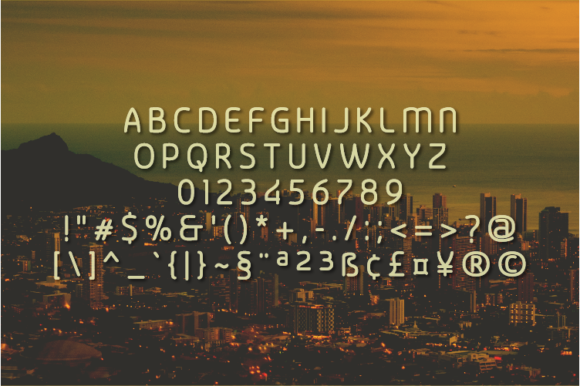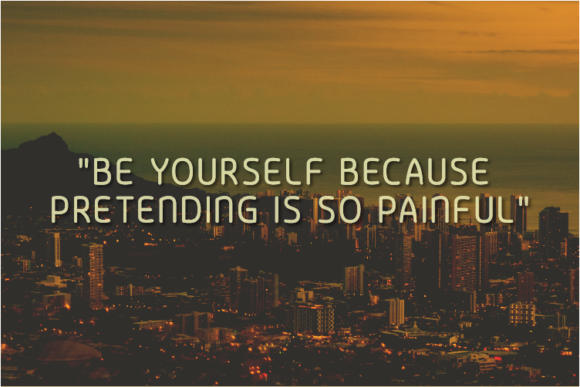
Introduction to Shoterly Font Font
Fonts play a crucial role in design, and the Shoterly Font font is a typeface that brings both character and versatility to any project. Whether you’re working on a branding project, a website, or a print design, the Shoterly Font font offers a unique style that can elevate your work.
Shoterly is a simple and authentic sans serif font.
It has a clean, thin and smooth vibe and it will be a hit for any design that you want to add it to .
Key Features of Shoterly Font Font
Why Choose Shoterly Font Font?
The Shoterly Font font is more than just a typeface – it’s a design tool that helps you communicate your message with style and clarity. Its unique character set and versatile design make it suitable for a wide range of applications, from elegant invitations to bold headlines.
With its carefully crafted letterforms and balanced proportions, the Shoterly Font font ensures readability and visual appeal across all mediums.
What makes Shoterly Font font special?
The Shoterly Font font stands out with its unique design, exceptional readability, and versatility across various design applications.